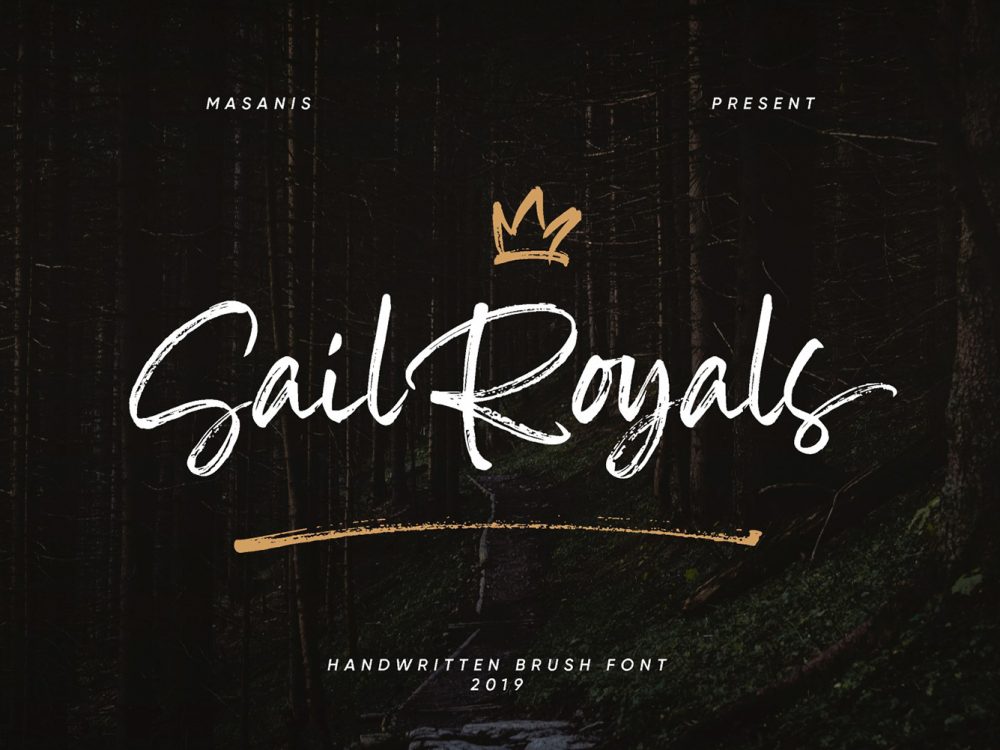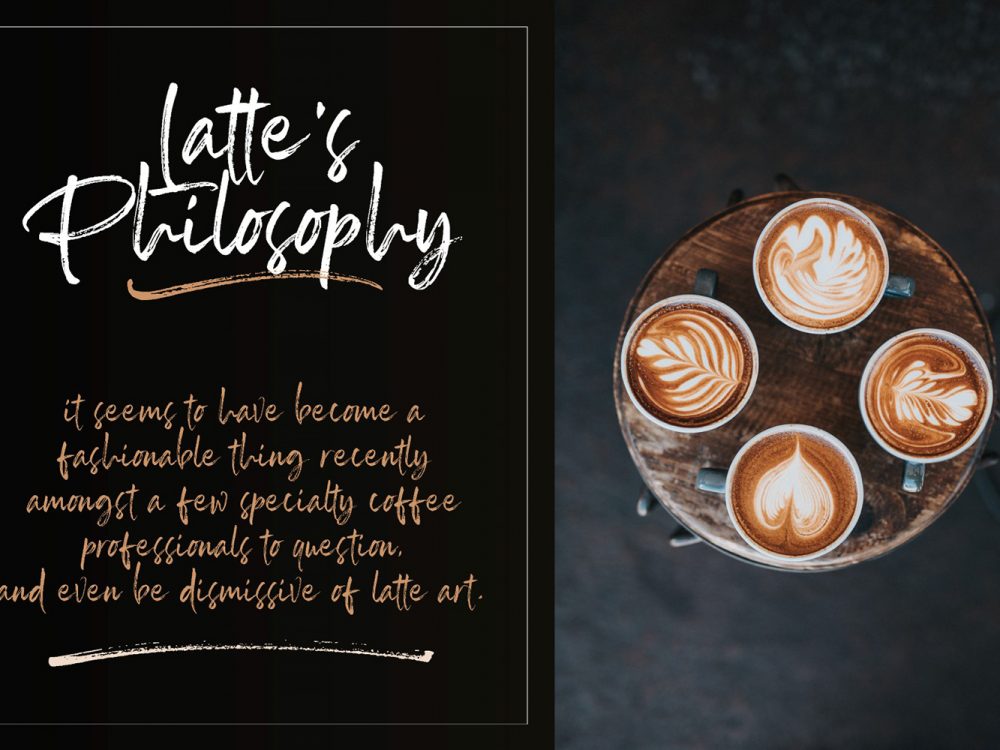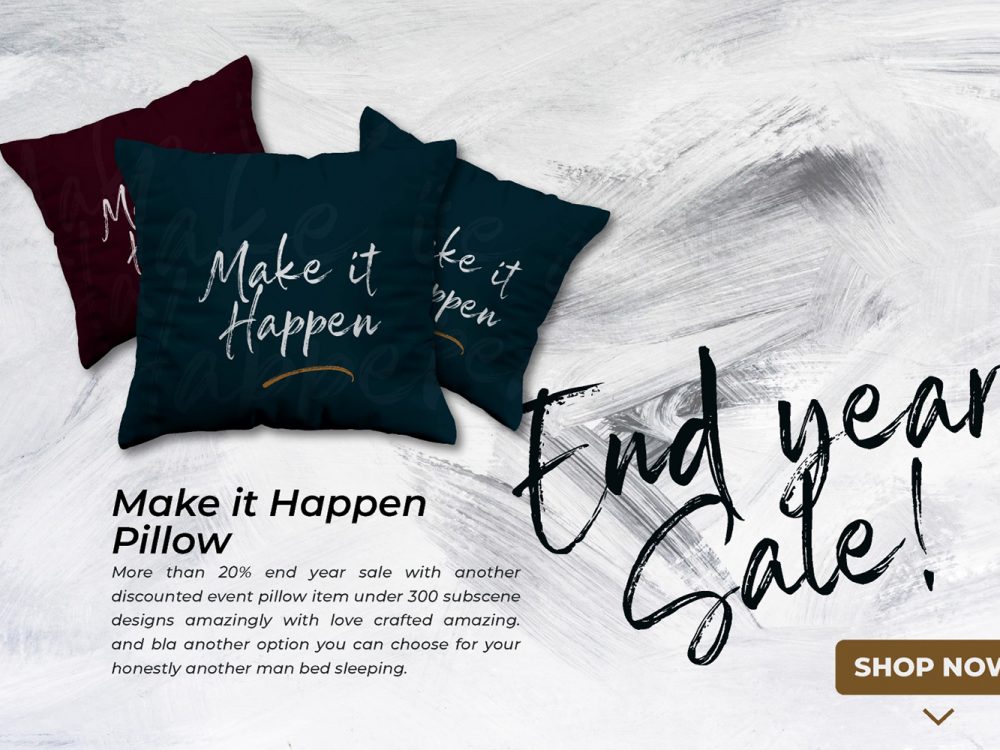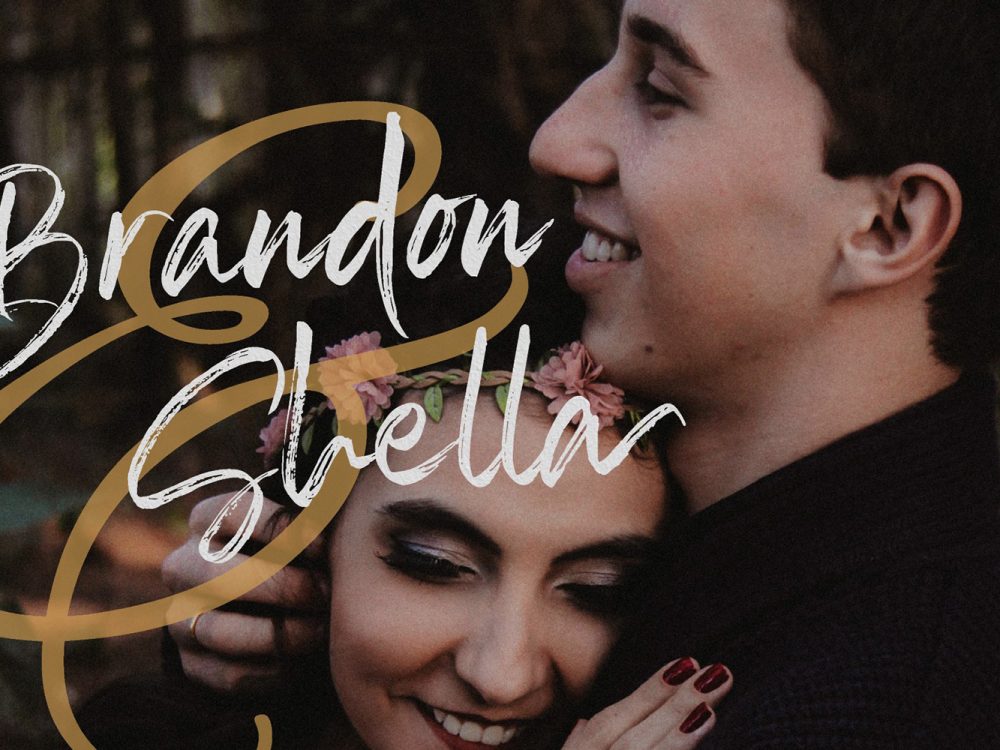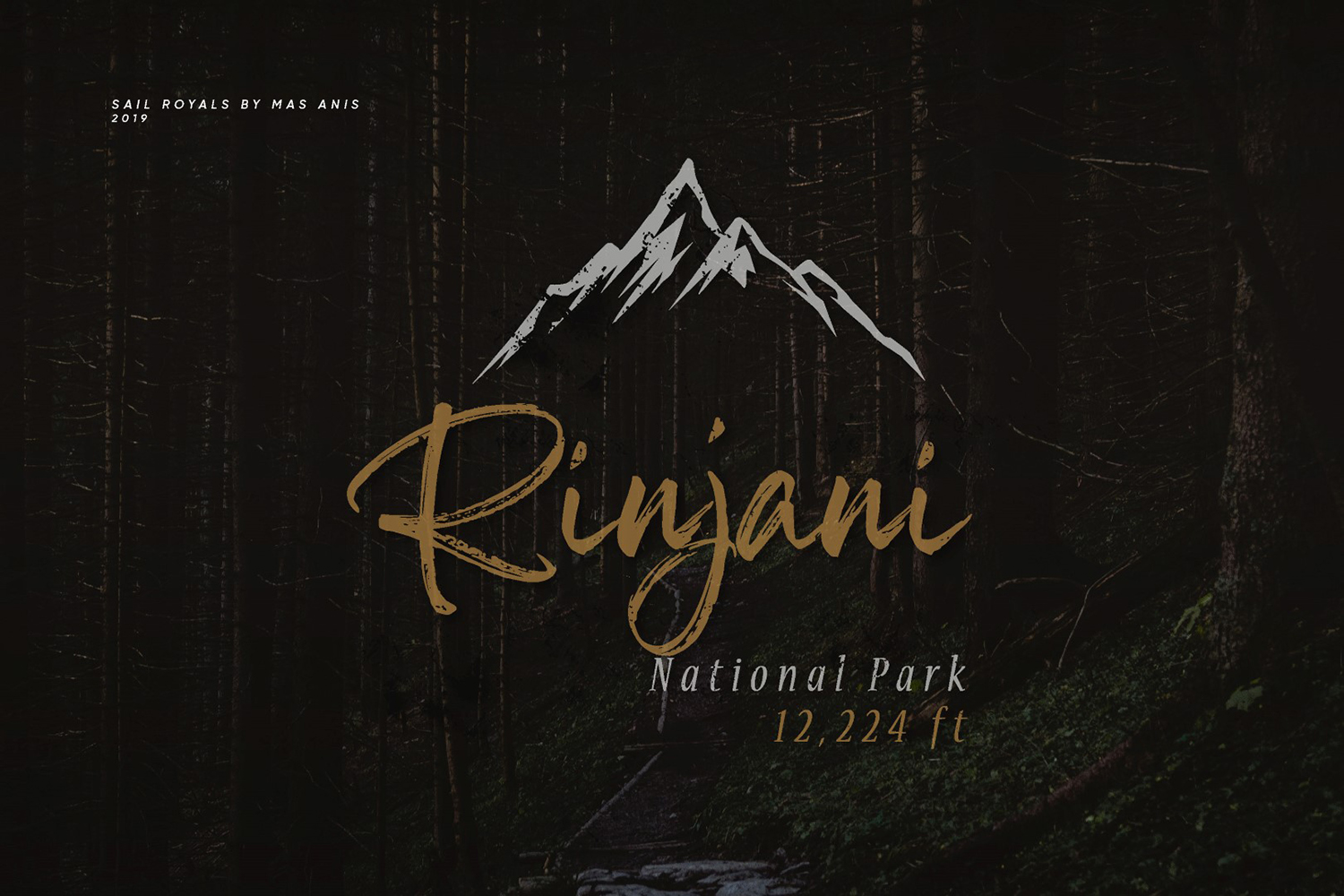
Sail Royals Free Font
Handeritten Font
Sail Royals Free Font is an interesting handwritten typeface that mimics the writing of a brush and compares favorably with modern calligraphic style among other fonts. This font is very suitable for creating various projects that require a scripted handwritten font. Use this font to create memorable branding projects, logos, wedding designs, social media posts, advertisements, product packaging, product designs, label, photography, watermark, invitation, stationery, and more. Improve your professional level using this font. If you like it don’t forget to check out the full version.